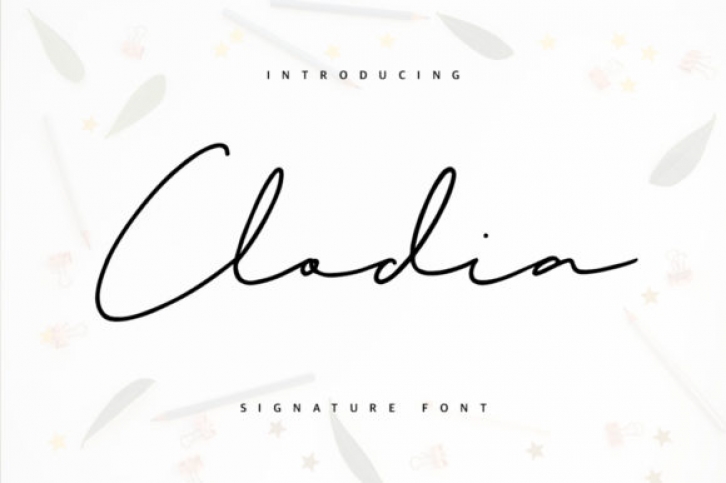
Clodia is a relaxed and sweet handwritten font. Its distinct and delicate letters make this font a masterpiece. Fall in love with its incredibly versatile style and use it to create spectacular designs!